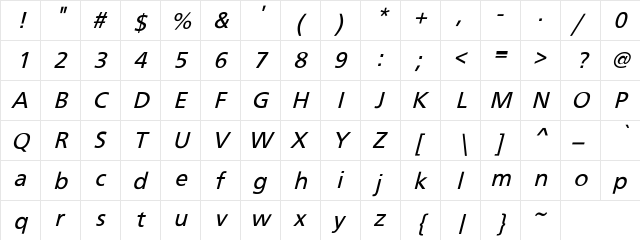
SchranerObl-Nor Regular
Design Context for SchranerObl-Nor Typeface
SchranerObl-Nor takes a measured approach to typography — its balanced proportions and neutral character make it a reliable workhorse for both digital and print work.
Pro Tip: Use SchranerObl-Nor in both headline and body roles to test its range before committing to a single application.